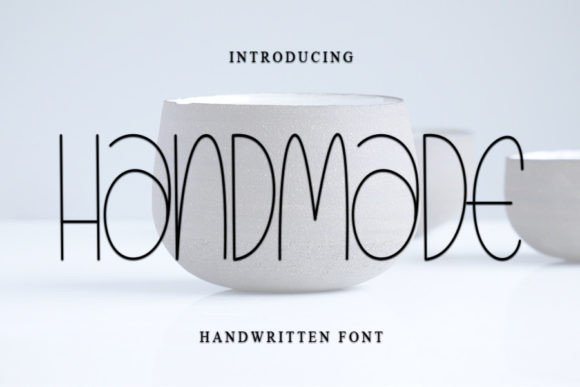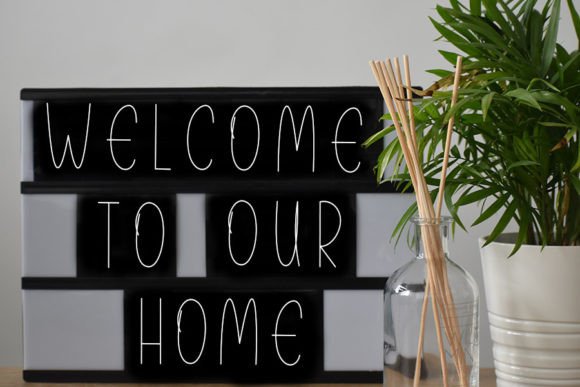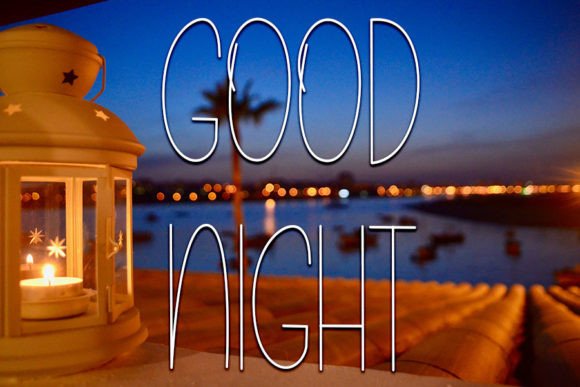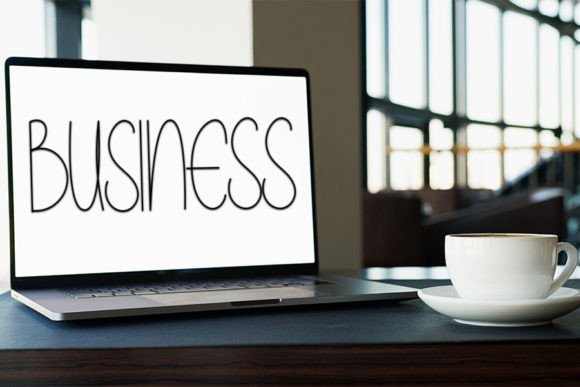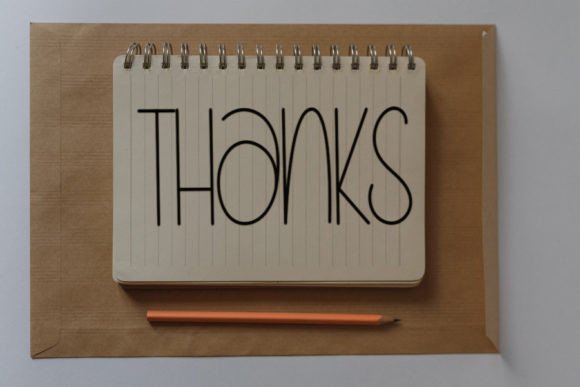
About Handmade Font Download
The Handmade Font Download is a neat and beautiful handwritten typeface designed to bring an elegant touch to your projects. With its distinct strokes and timeless rhythm, this script font balances sophistication with creativity. Whether you’re working on personal stationery, digital graphics, or professional branding, Handmade adds charm and uniqueness to every design.
A Neat and Elegant Script Typeface
The Handmade script font blends stylish handwritten details with smooth lines and balance. As a result, it feels refined while remaining approachable. Furthermore, its versatile design makes it suitable for both small personal crafts and large professional layouts.
Handwritten fonts always make invitations and cards more personal. The Handmade Font is perfect for wedding invitations, thank-you cards, birthday notes, and seasonal greetings. Because of its flowing elegance, each card or note feels warm, unique, and heartfelt. In addition, it helps create a polished, handwritten finish.
Branding and Logo Design with Handmade Font
Typography defines the personality of a brand. The Handmade handwritten font is a great choice for boutique logos, product packaging, and promotional campaigns. Its elegant handwritten curves communicate trust and style. Therefore, it is especially suitable for fashion, lifestyle, and creative industries.
Posters, Editorials, and Display Projects
The Handmade Font Download also works wonderfully in posters, book covers, magazines, and inspirational quotes. Its stylish script maintains readability while adding a unique character. Consequently, it is an excellent typeface for designers who want to blend beauty with clarity.
In today’s digital-first world, fonts must adapt seamlessly across platforms. The Handmade typeface integrates perfectly into Instagram posts, Pinterest boards, YouTube thumbnails, and blogs. Because of its stylish handwritten rhythm, it makes online projects visually engaging.
Why Designers Choose Handmade Typeface
Designers love fonts that offer both beauty and flexibility. The Handmade handwritten script provides elegance while staying easy to use in multiple contexts. Moreover, its timeless design ensures it remains a reliable choice for future creative projects.
Add Elegant Beauty to Your Projects Today